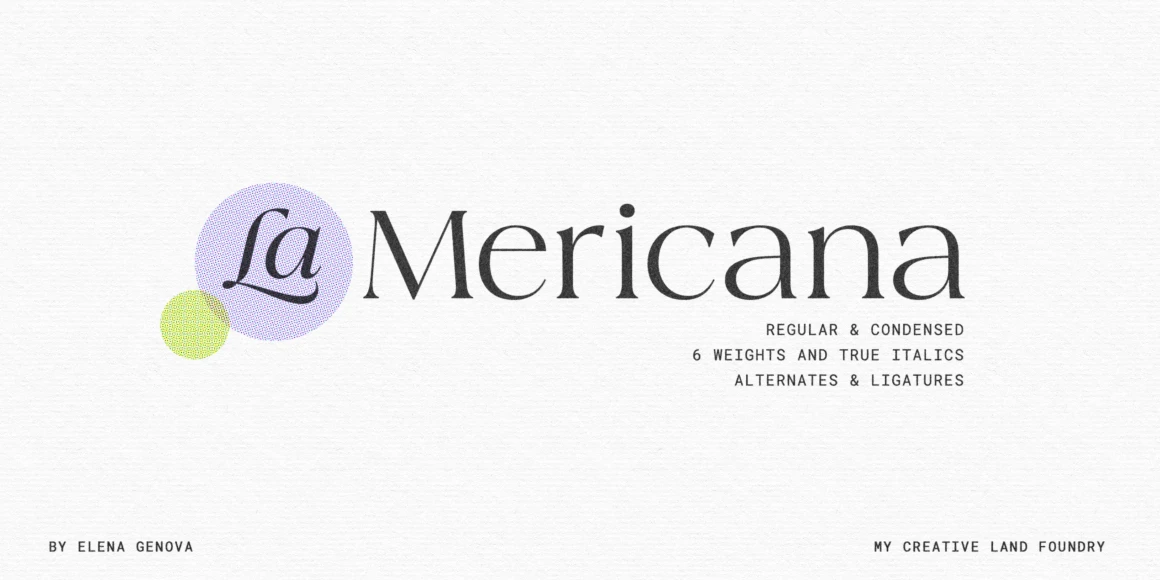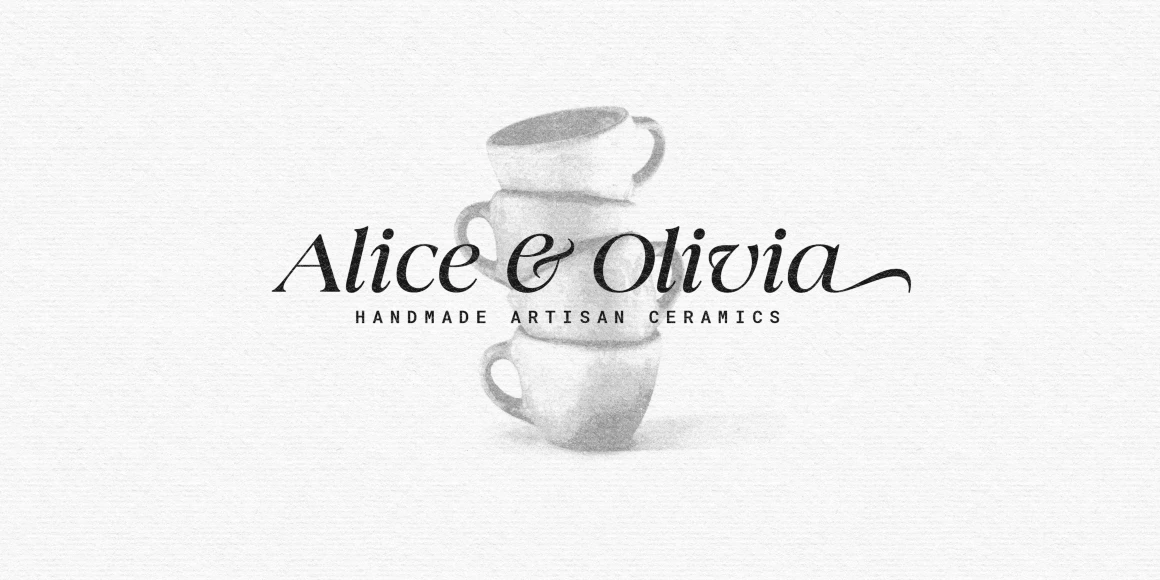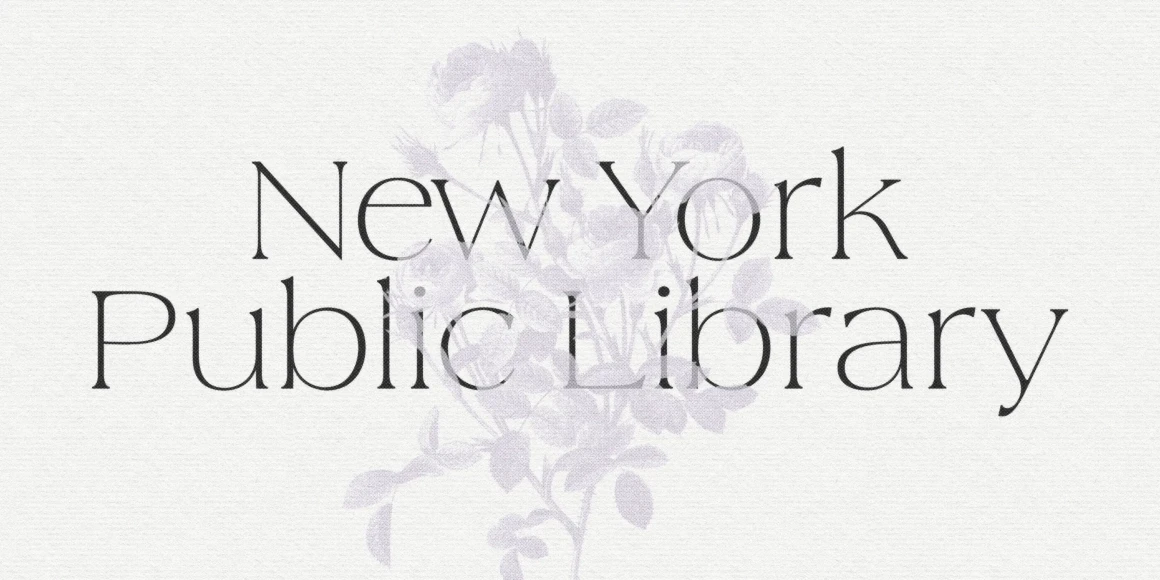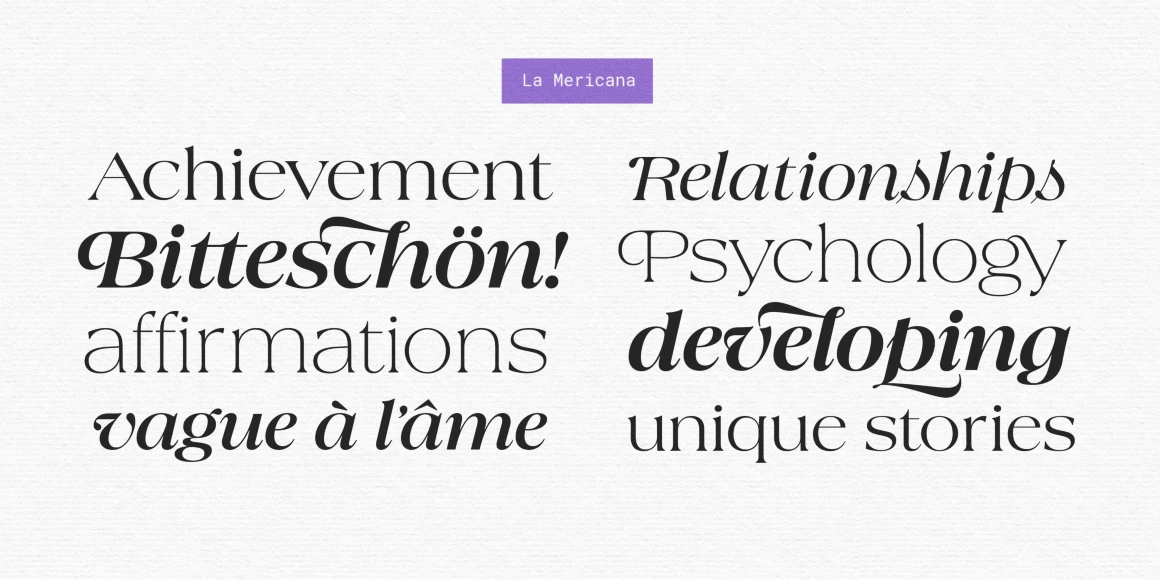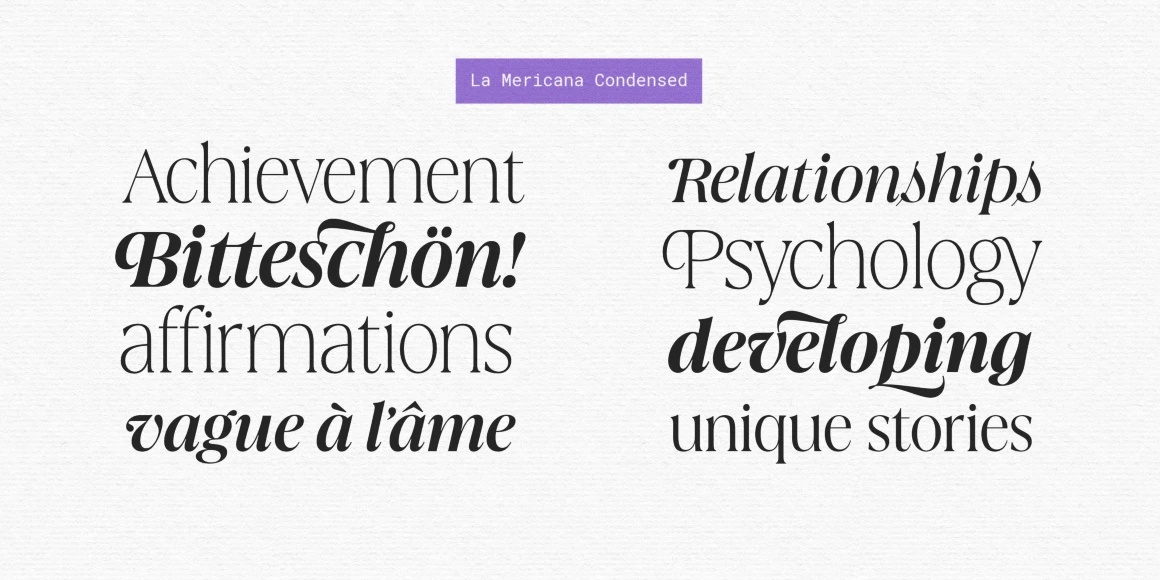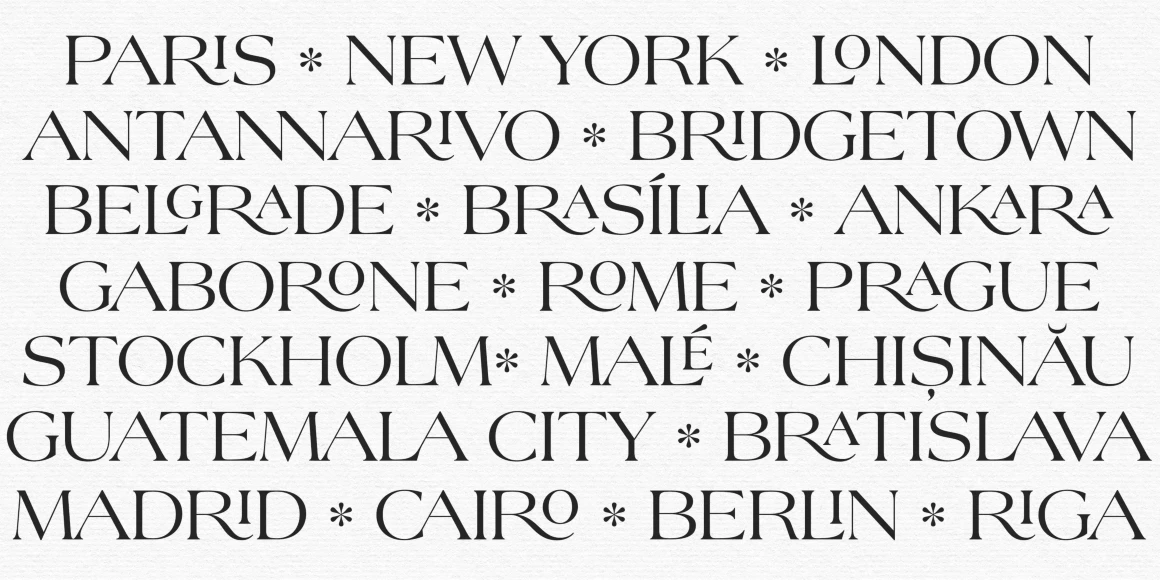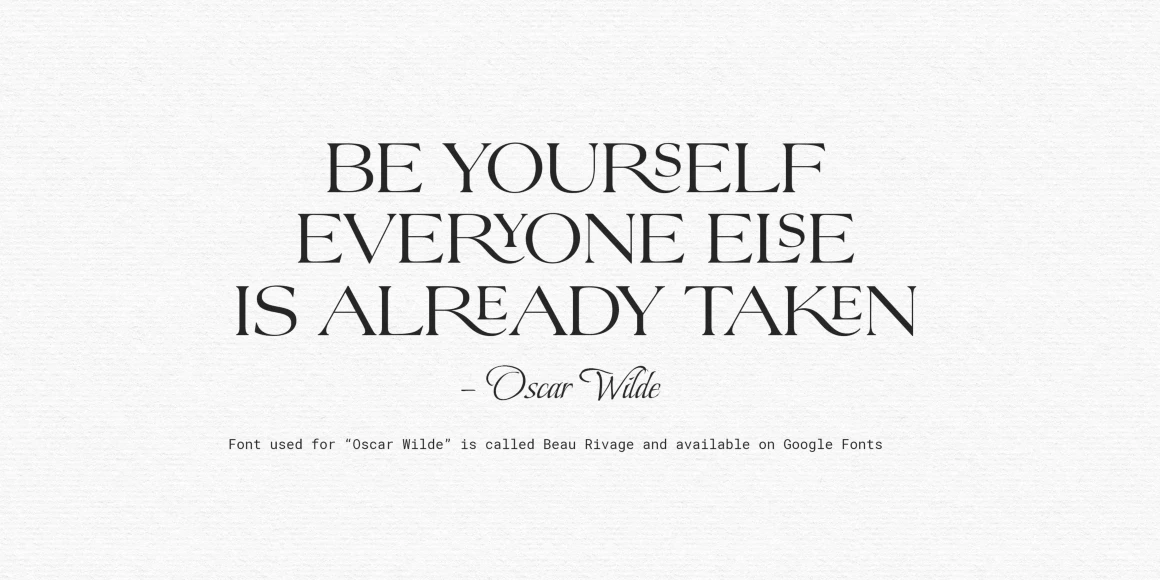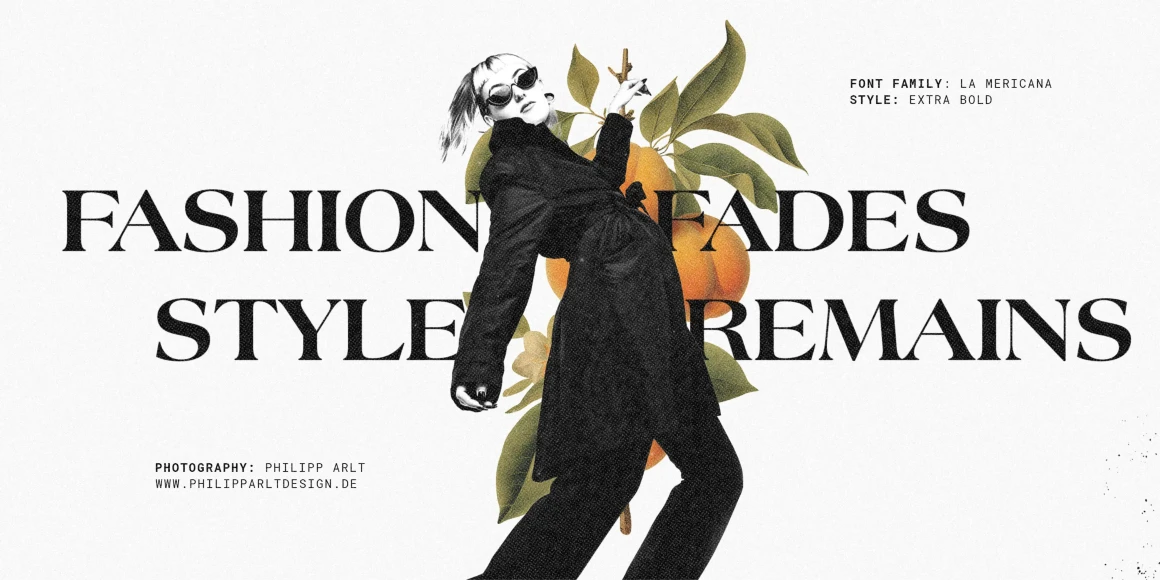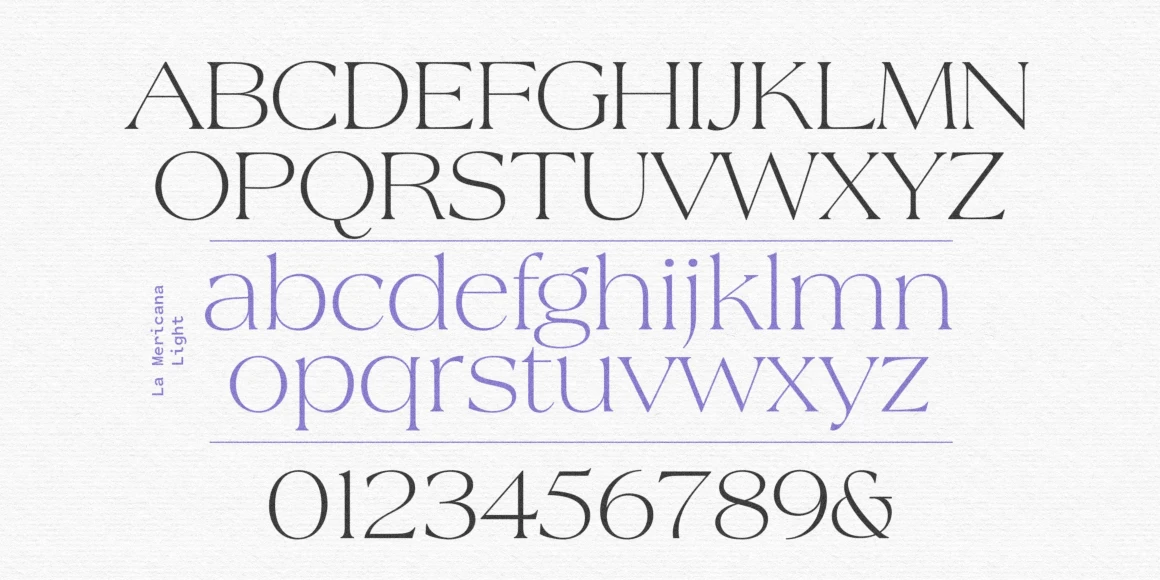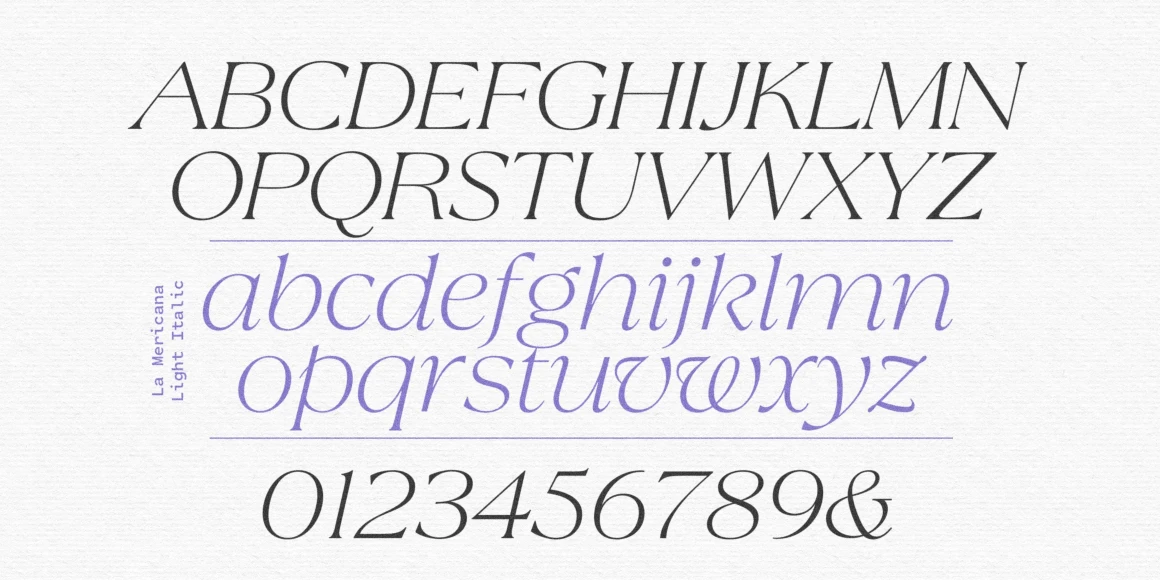
La Mericana
From My Creative Land
La Mericana is a vintage-yet-modern type family inspired by Richard Isbell’s Americana, originally designed in 1965 for American Type Founders. It builds on the same warmth, wedge serifs, and generous x-height — qualities that made it a distinctive voice in mid-century American typography — and reimagines it for contemporary use.
The nostalgic personality evokes classic signage and retro branding, while new ligatures, alternates, and a true italic bring flexibility and refinement. The italic introduces calligraphic details, adding movement and elegance without losing the family’s confident, approachable tone.
La Mericana’s large x-height and open proportions keep it legible in tightly set lines. The condensed version preserves the original’s distinctive look while making it ideal for branding, editorial, packaging, and compact digital formats — Instagram posts, reels, stories — where typographic impact has to work in a small space. La Mericana brings heritage into modernity with warmth and character.
Designed by Elena Genova